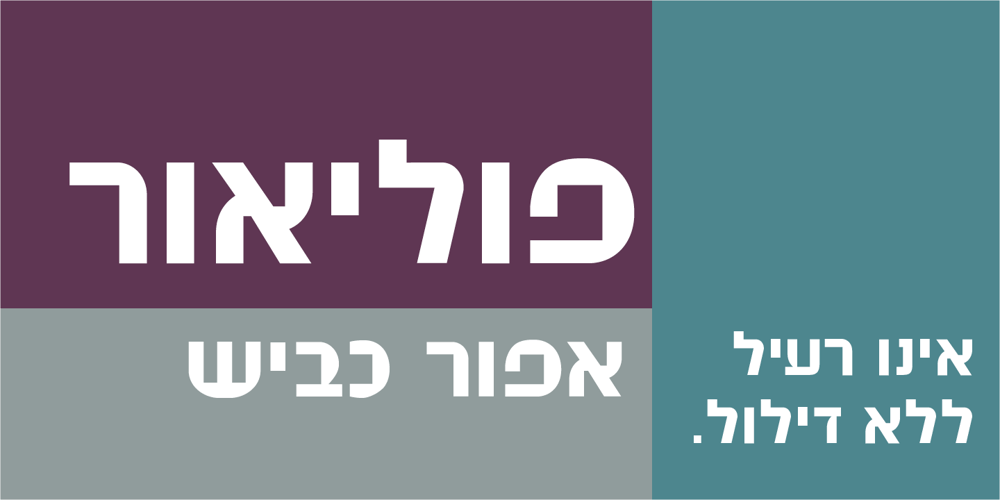
Tambour MF Font Family was designed by Zvika Rosenberg and published by Masterfont. Tambour MF contains 2 styles and family package options. Geometric forms make this elegant font family a great companion for titles, packaging, logos and signs, indoor and outdoor.